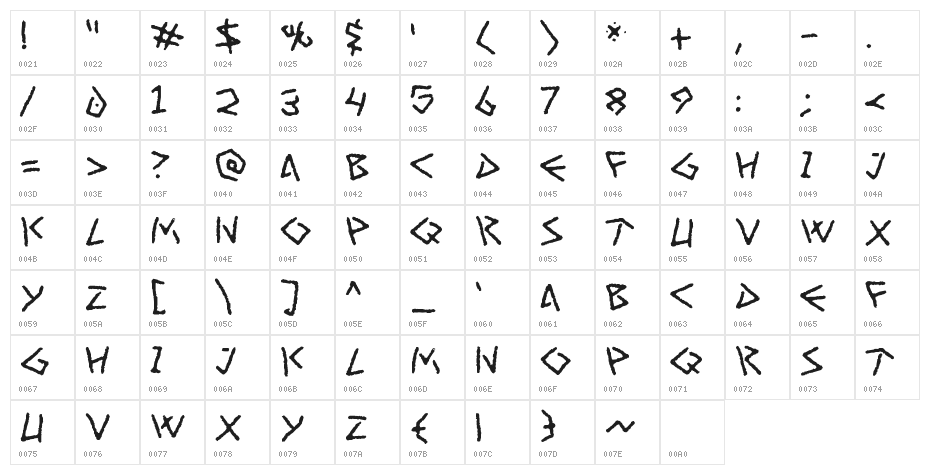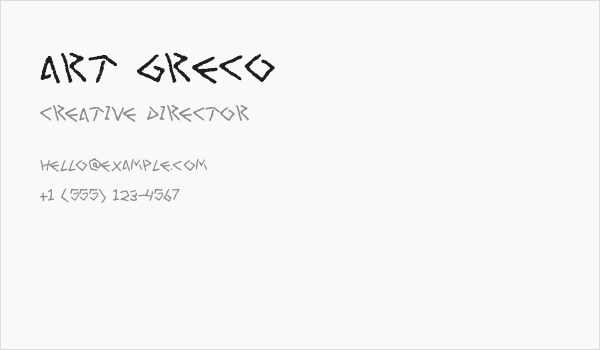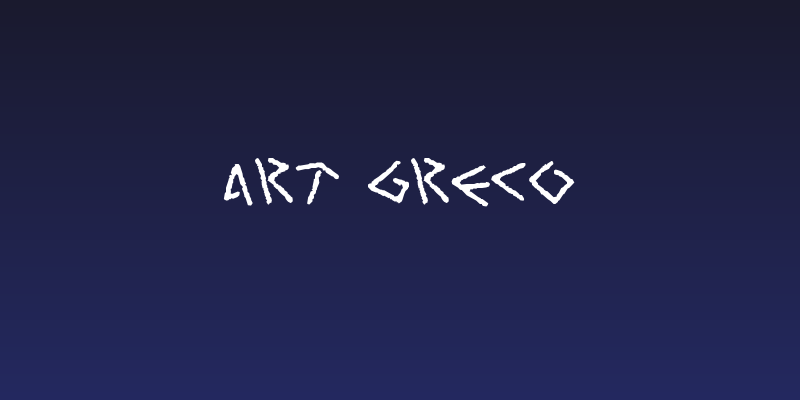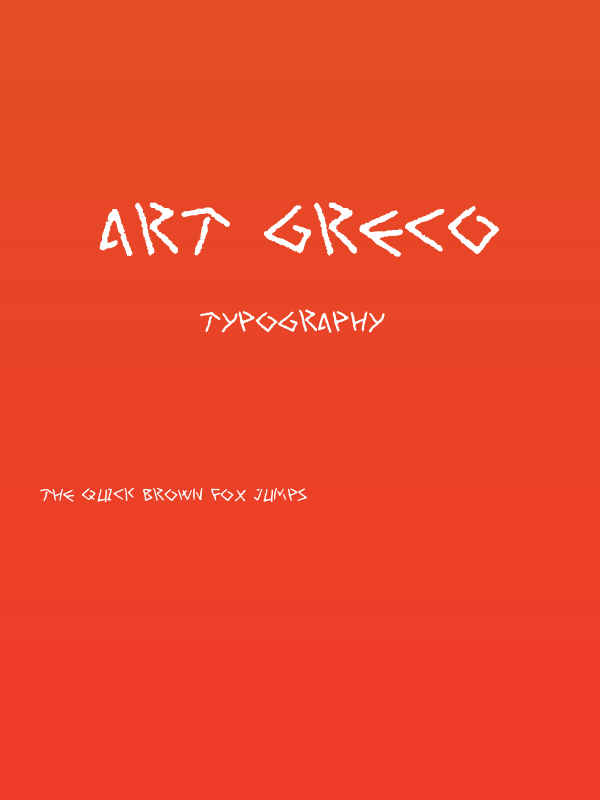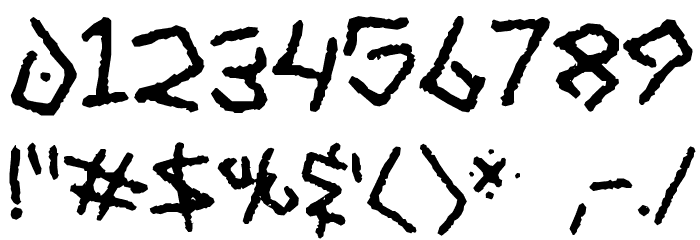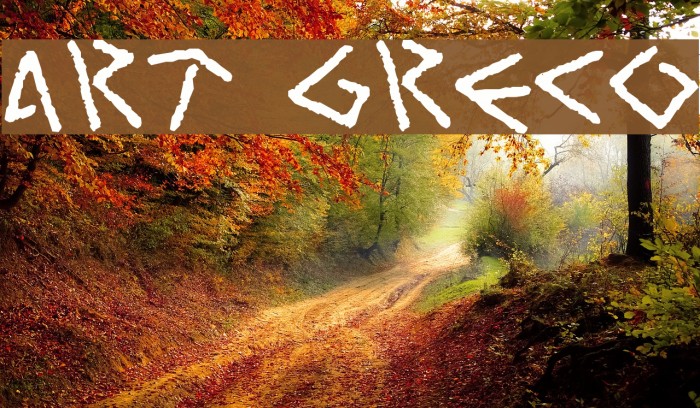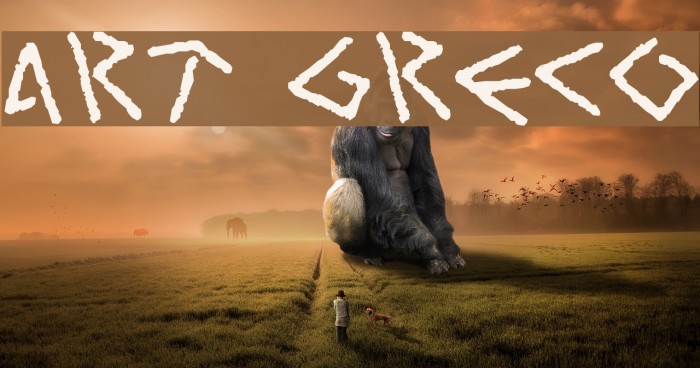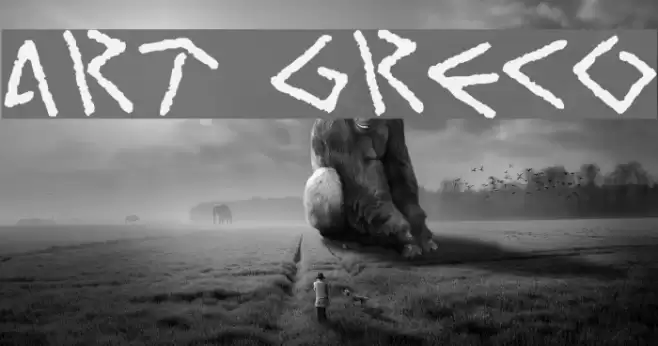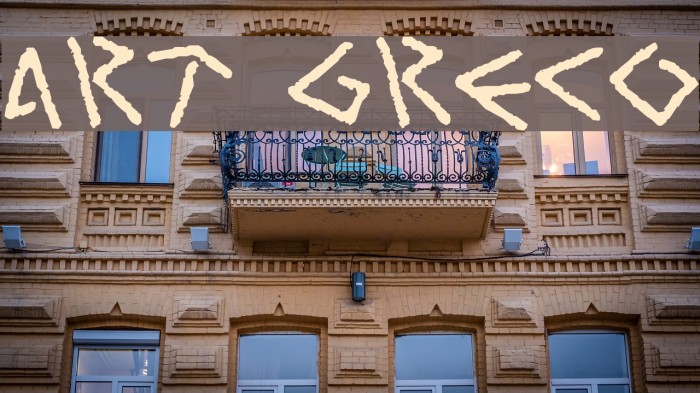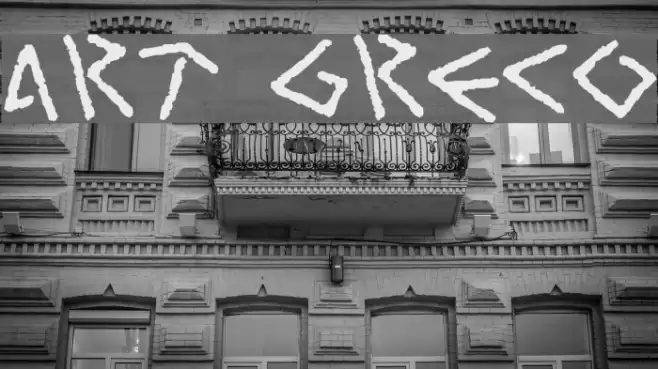
Art Greco Font
Art Greco Description
This font features a bold, hand-drawn style with a rough, textured appearance reminiscent of ancient scripts. The characters are angular and slightly irregular, giving them a dynamic and energetic feel. The uppercase and lowercase letters maintain a consistent style, with sharp edges and a sense of movement. Numbers and special characters follow the same design principles, ensuring a cohesive look across all elements. This font's unique aesthetic makes it stand out, offering a blend of historical and artistic influences.
| Use Case | Logos, Headlines, Posters |
| Proposed Projects | Ideal for projects that require a historical or artistic touch, such as posters, album covers, or themed event invitations. |